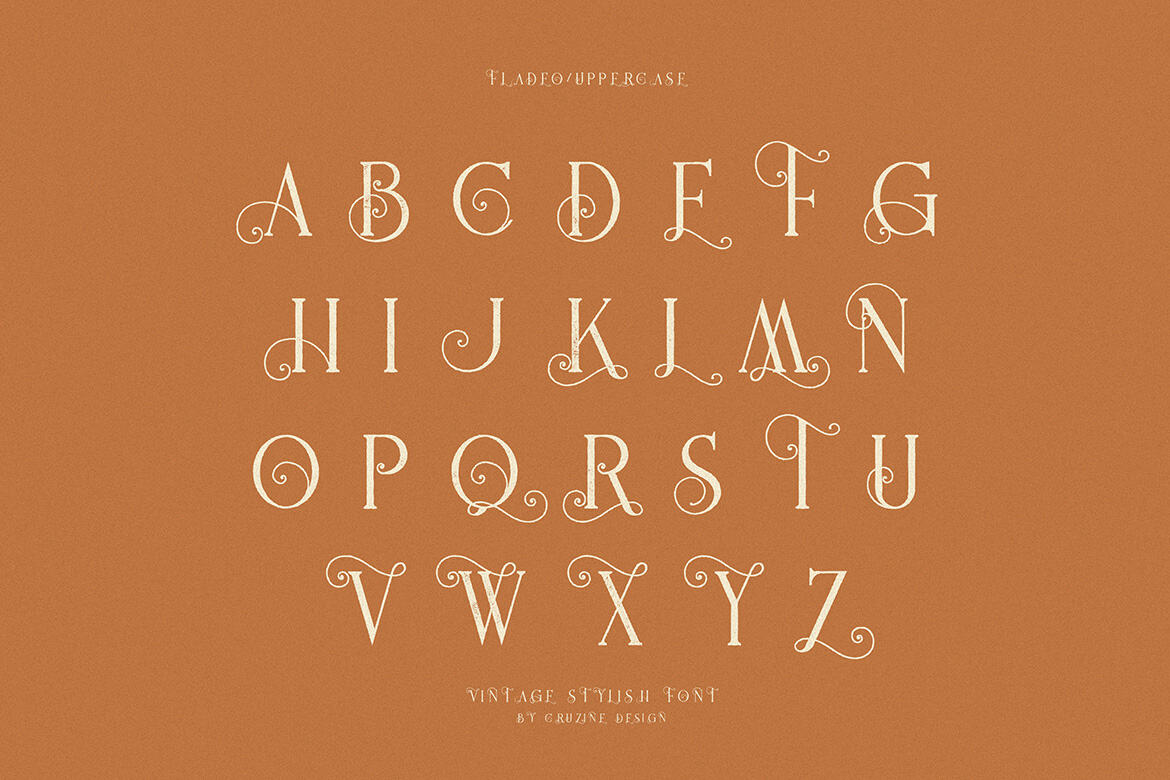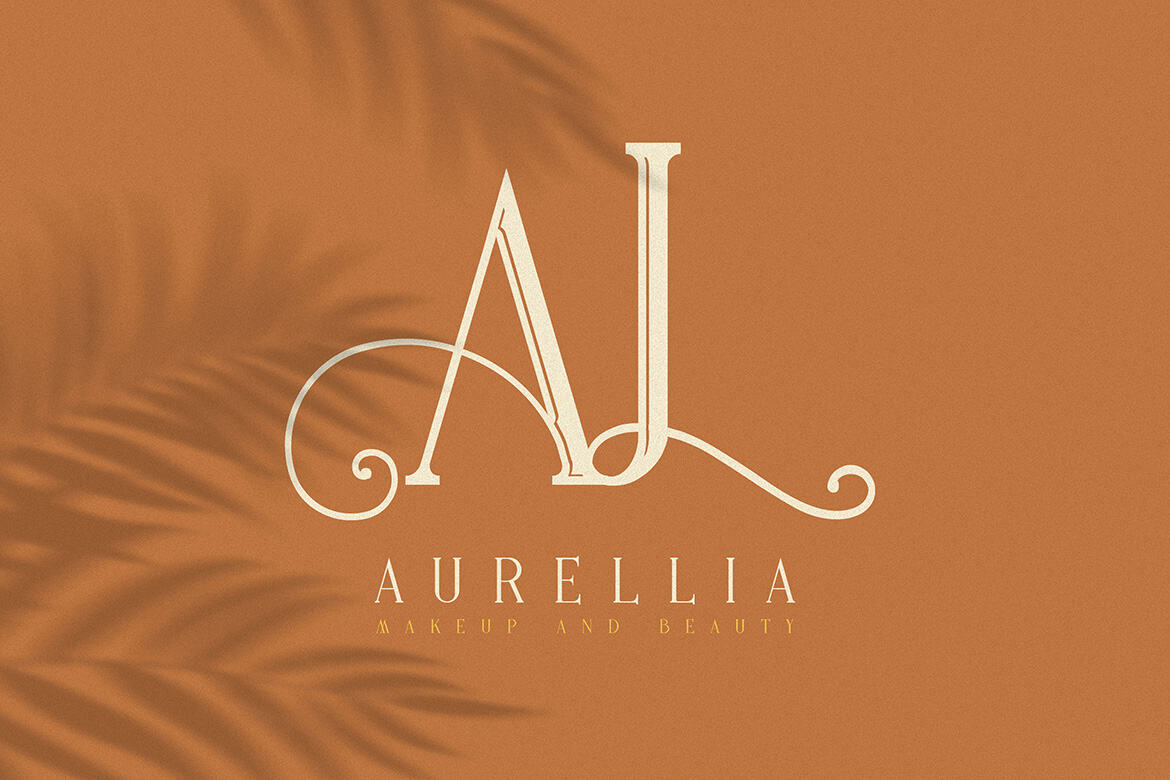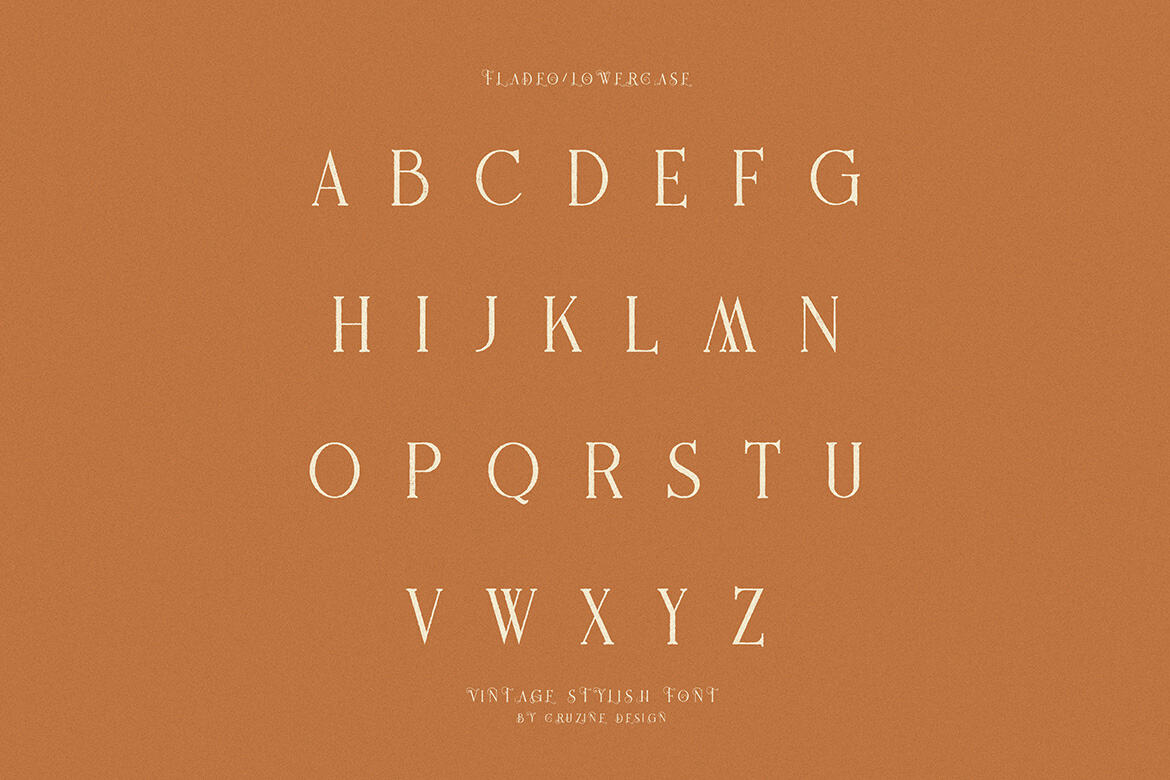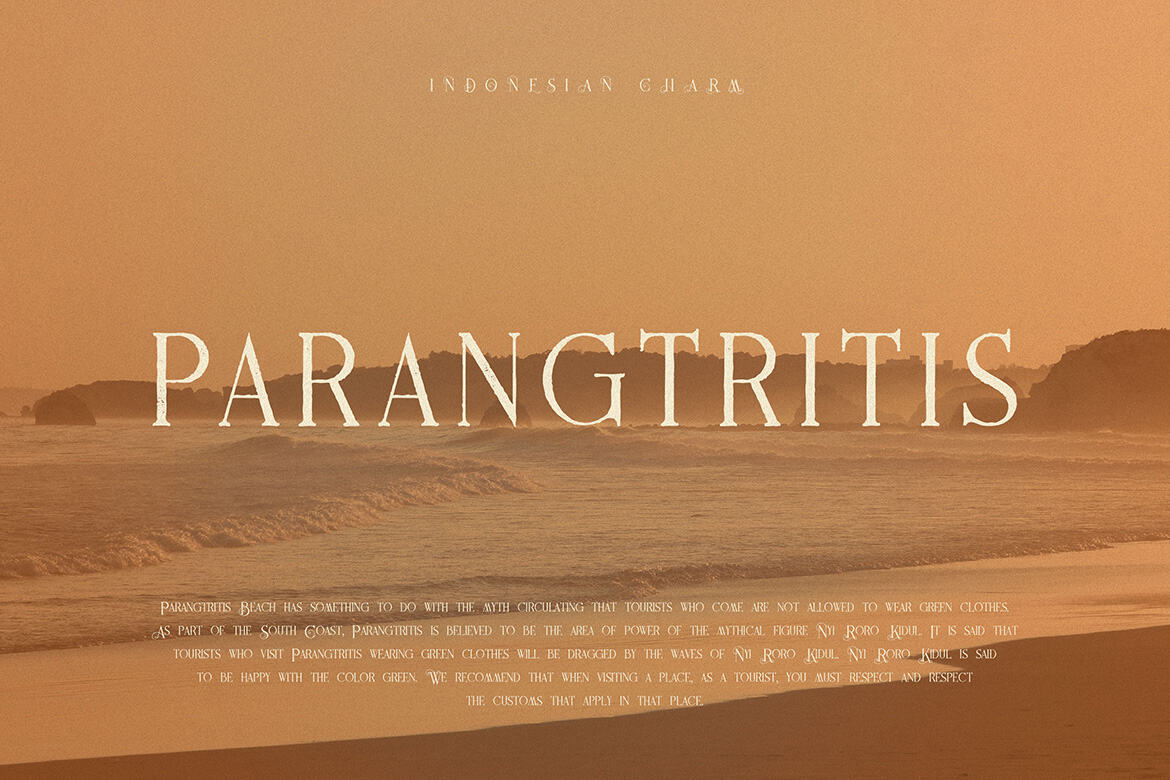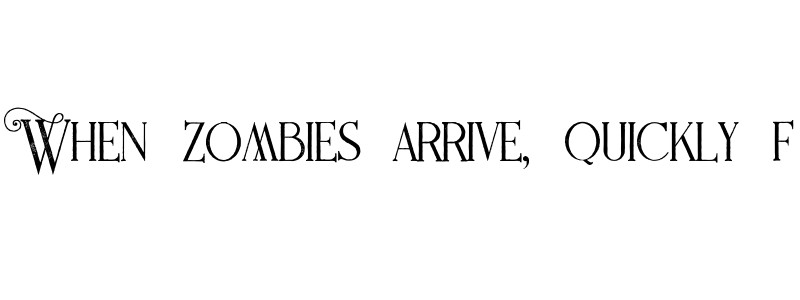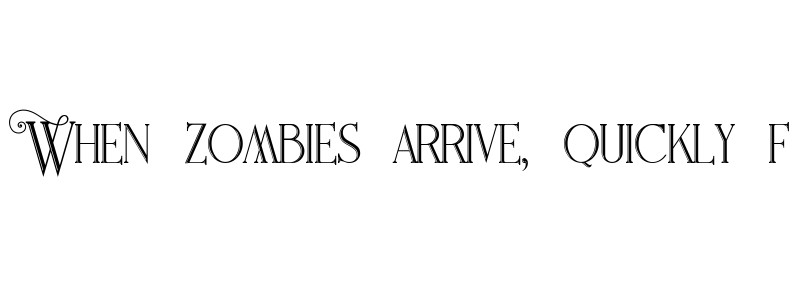
Fladeo - FREE Font Family
Fladeo grunge
Fladeo inline grunge
Fladeo inline
Unique elegant, retro & decorative serif font. Great for your new logo or branding project. These 3 fonts are extra & FREE bundle to premium regular font you can purchase and support us ;) Thanks a lot.
• great for retro or vintage style branding projects